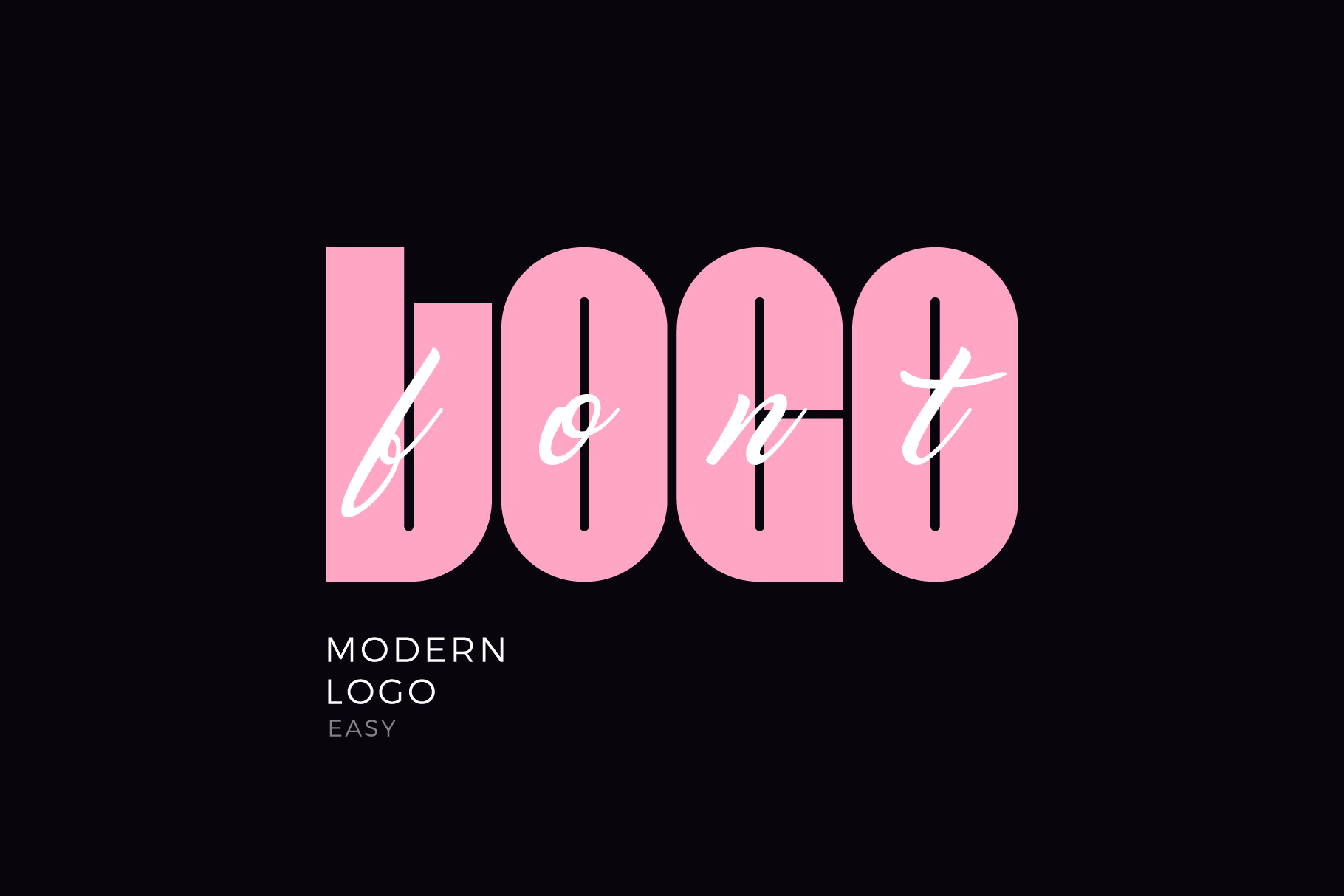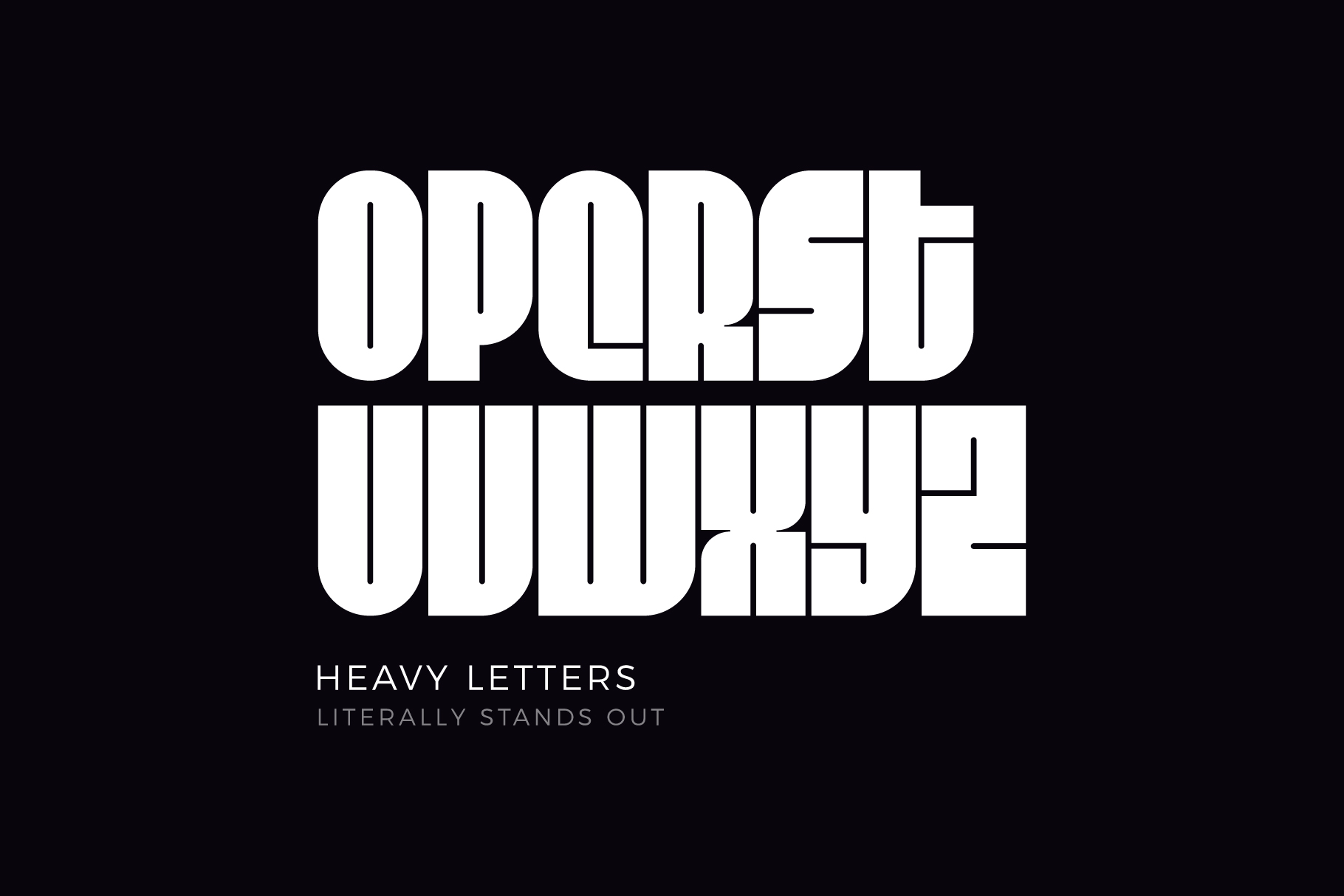
Font “Space” allows you to decorate baner, poster, page, card or other with only the font. This trend in typography which literally stands out! The maxi typography craze started about a couple of years ago and since then, it has steadily raised popularity among graphic and web designs.
You can also use the font space for the image masking. This effect is absolutely impressive, especially when it creates the feeling of depth – several layers interacting with each other and elements from the back are coming to the front.
Is may be absolutely mind-blowing.